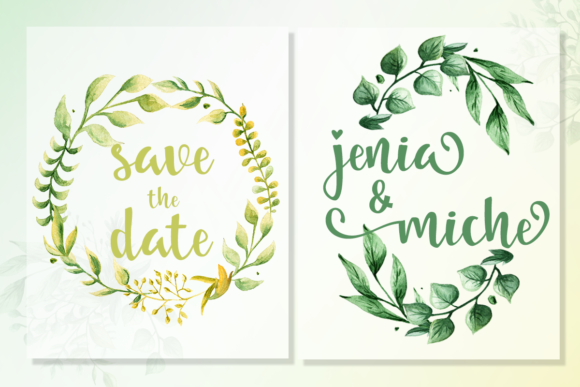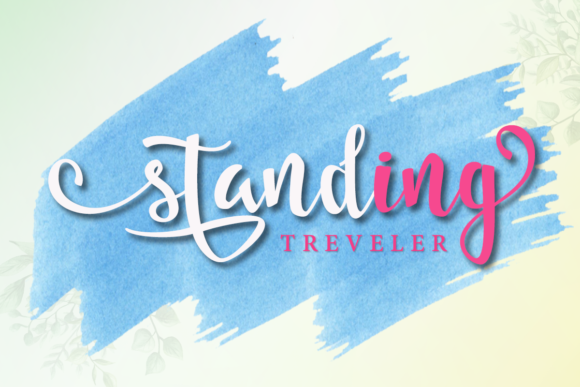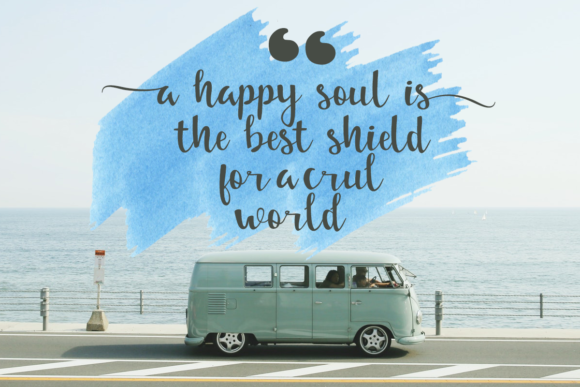
Introduction to Jandle Font
Jandle is a sweet and friendly handwritten font, full of charm.
Get inspired by its authentic style .
Key Features of Jandle Font
Why Choose Jandle Font?
Jandle Font offers exceptional quality and versatility, making it a valuable addition to your design toolkit. Whether you’re creating for personal projects or commercial use, Jandle Font delivers professional results.